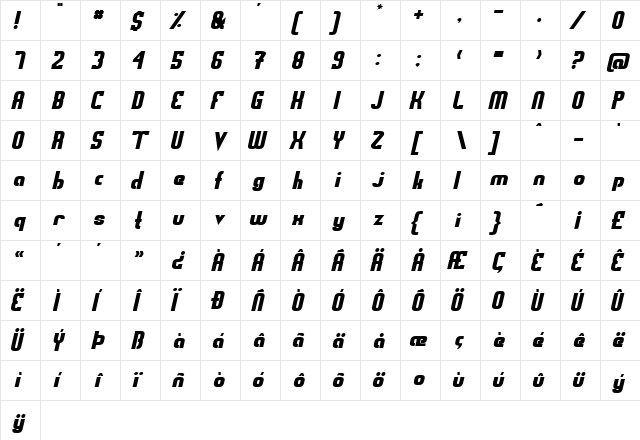
Sweden Funkis RegularOblique Regular
Design Context for Sweden Funkis RegularOblique Typeface
Sweden Funkis RegularOblique has an approachable, lighthearted character — its loose, expressive forms are well-suited to children's content, casual branding, and fun-first design. Its italic angle brings a sense of urgency and motion to the letterforms.
Great for children's books, toy packaging, family event branding, and casual consumer-facing design.
Font Pairing: Pairs well with a rounded or humanist sans for body copy, maintaining the friendly tone without relying on Sweden Funkis RegularOblique to carry extended reading.
Pro Tip: Avoid using Sweden Funkis RegularOblique for long passages of text — it works best for headlines, labels, and short calls to action.